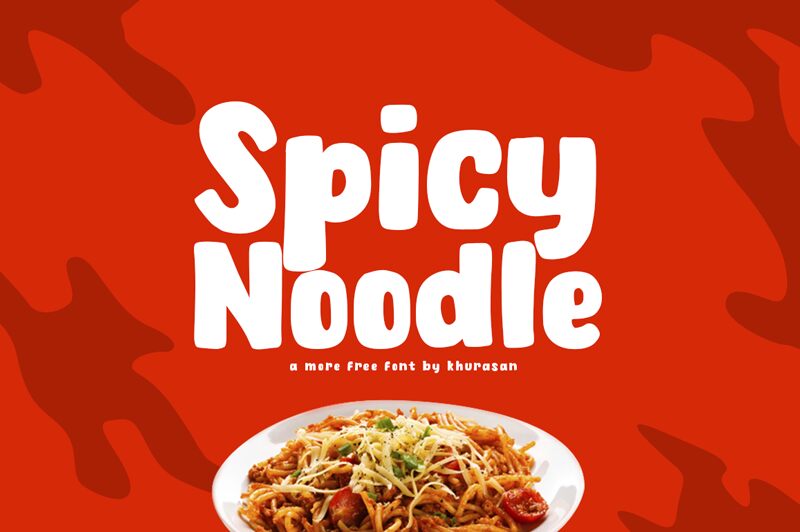
Spicy Noodle
Spicy Noodle by Khurasan is a lively and exuberant display font that adds a dash of playfulness to any project.
With its extra-bold weight and cartoon style, this font is perfect for children's books, comic strips, and animated videos. Its whimsical design brings characters to life and creates a delightful reading experience. Whether you're working on a vibrant logo for a toy store or designing eye-catching posters for a family-friendly event, Spicy Noodle is the font to make your creations pop with personality.